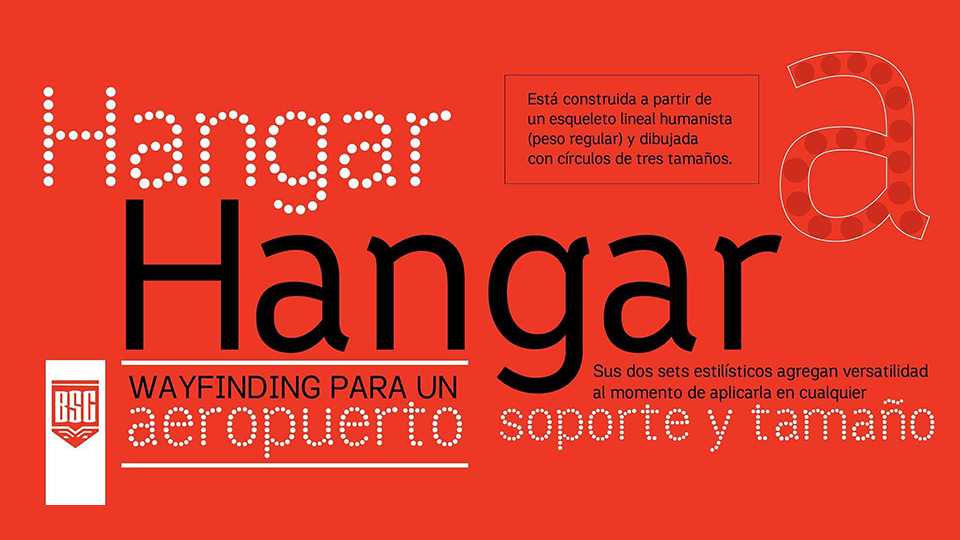
Download Hangar font, a wayfinding sans serif typeface designed for an airport. Hangar features a solid character set and an additional stylistic set drawn from dots that retain the same structure.